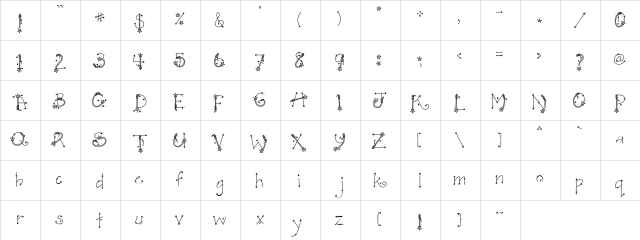
LD Stardust Regular
Design Context for LD Stardust Typeface
LD Stardust is a composed and adaptable typeface that performs quietly and consistently across a wide range of design contexts.